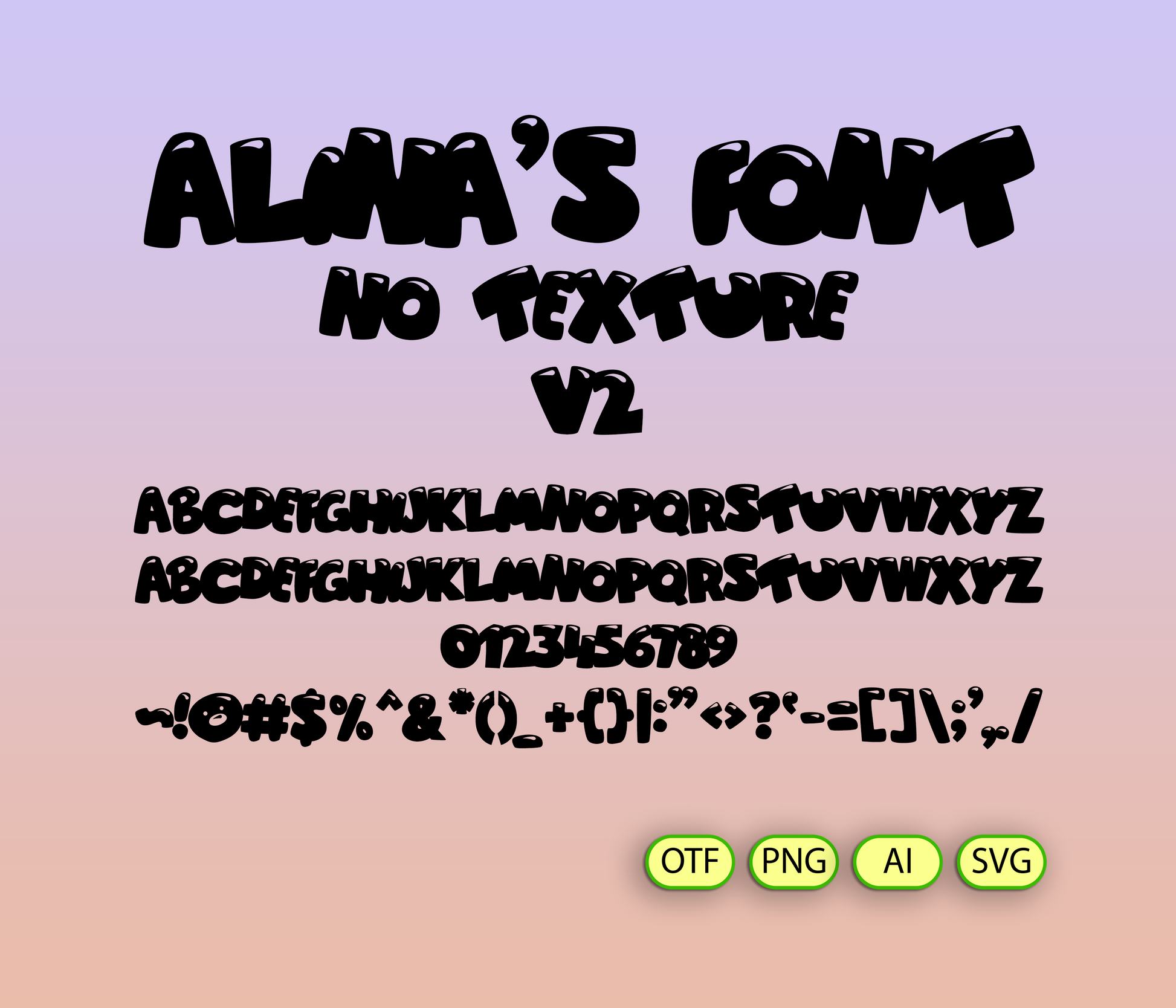
Cushioned Corner Whimsical Home Style Font
Enter the magical realm of domestic adventures with our Cushioned Corner font, embodying the delightful essence of household imagination and interactive learning. Designed for early childhood educators, family entertainment designers, nostalgic content creators, and wholesome brand specialists, this font delivers the joyful, comforting energy of living room escapades to your creative ventures. Craft heartwarming announcements, family-oriented products, or charming digital experiences with the playful, educational spirit of home-based discoveries.
Our Cushioned Corner font showcases bouncy, welcoming letterforms and cheerful personality that captures the snug, interactive aesthetic of furniture-based adventures. Excellent for:
• Family Celebrations: Design memorable party supplies, themed decorations, and celebration materials for toddler birthdays and household milestone events
• Learning Materials: Outstanding for children's workbooks, preschool signage, and educational posters that encourage home-based exploration
• Nostalgic Content: Elevate retro-themed websites, vintage family blogs, and social media with headers that evoke childhood comfort and security
• Youth Programming: Enhance daycare materials, children's theater productions, and family entertainment branding with authentic domestic charm
• Craft Projects: Add cozy warmth to memory books, nursery decorations, and handmade items inspired by the aesthetics of comfortable family spaces